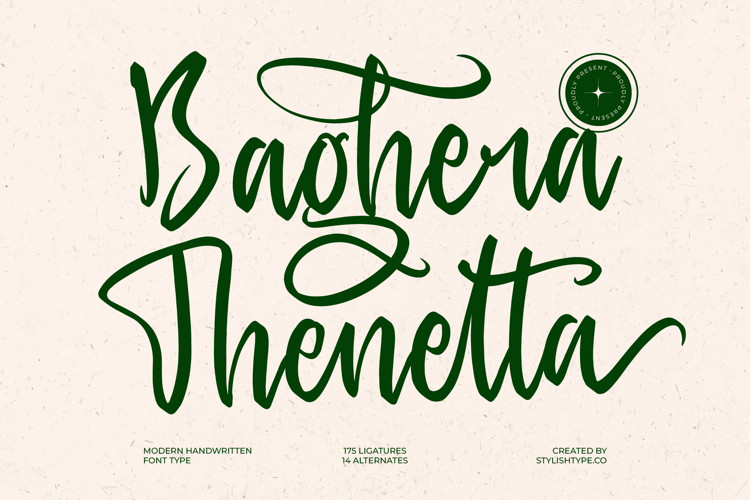
Baghera Thenetta - Modern Handwritten Font Script
Baghera Thenetta Italic
Baghera Thenetta
Baghera Thenetta - Modern Handwritten Font Script. Boasting an impressive 175 ligatures and 14 alternates, this font offers extensive customization options to ensure your typography is truly unique. These intelligent design elements provide a seamless, organic flow, transforming ordinary text into a work of art and allowing for truly dynamic typography that stands out.